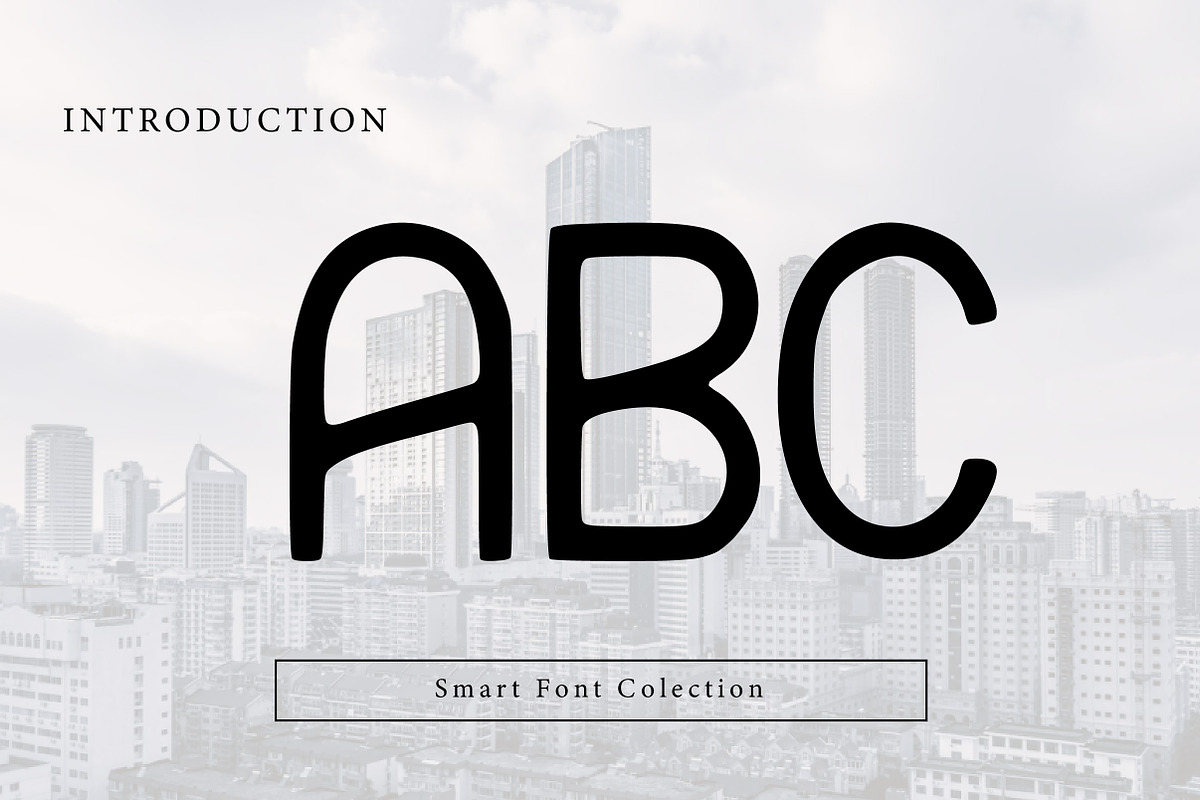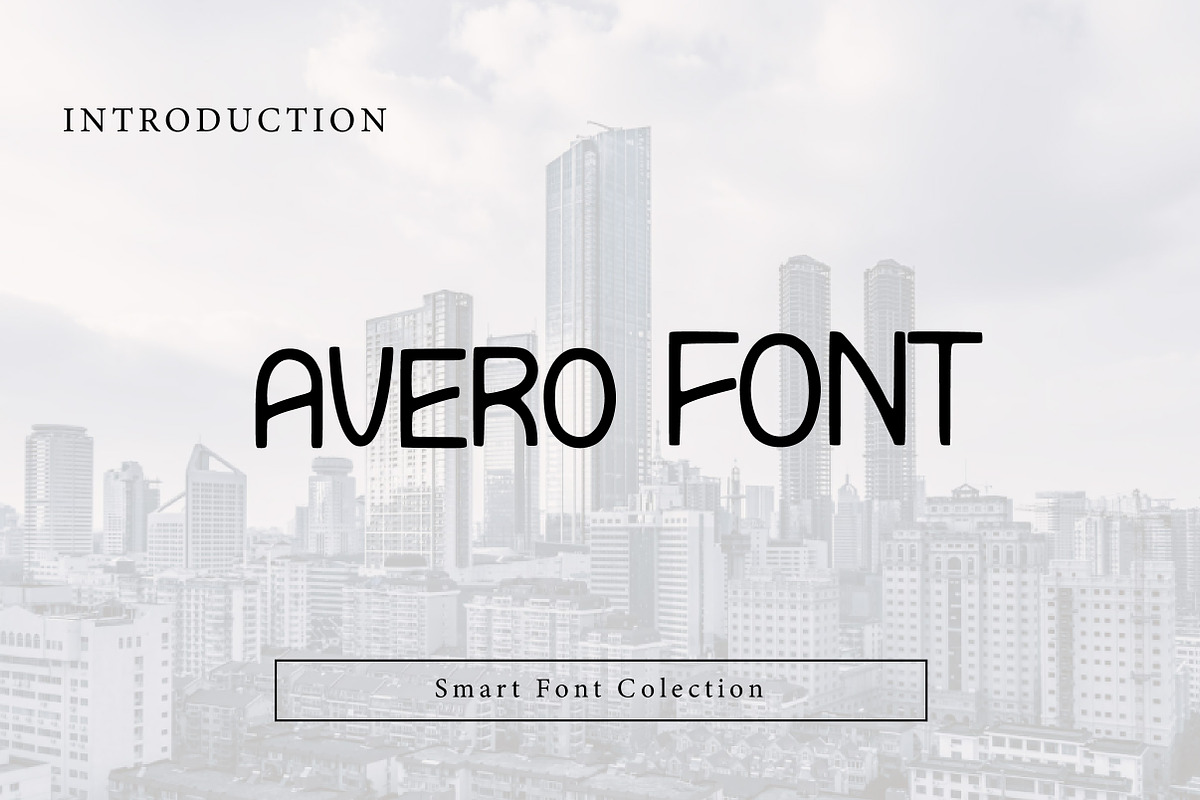
Avero
Avero is a clean, modern handwritten sans-serif typeface with a casual, friendly, and minimalist personality. Its rounded letterforms, even strokes, and natural handwritten feel make it highly readable while maintaining a relaxed and approachable style. Avero is perfect for branding, logos, UI/UX design, mobile apps, social media graphics, blogs, educational content, and lifestyle projects. Designed to feel human yet structured, Avero works beautifully across both digital and print platforms where clarity and warmth are equally important.